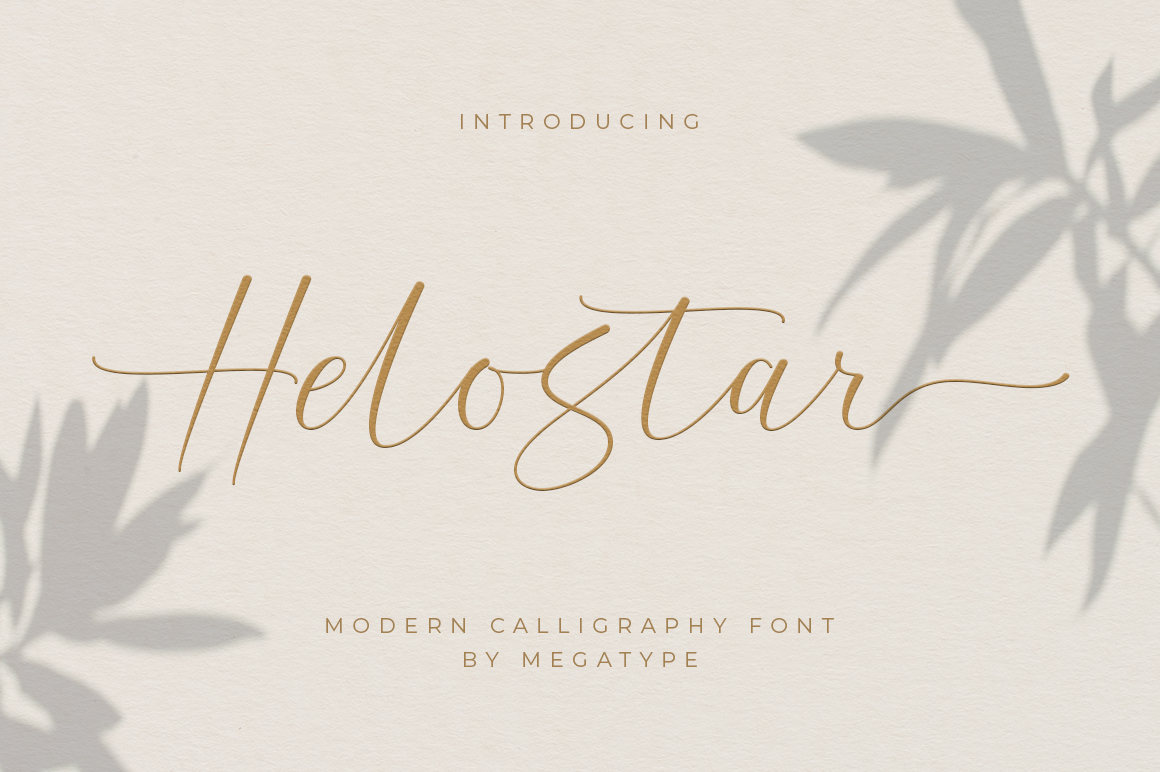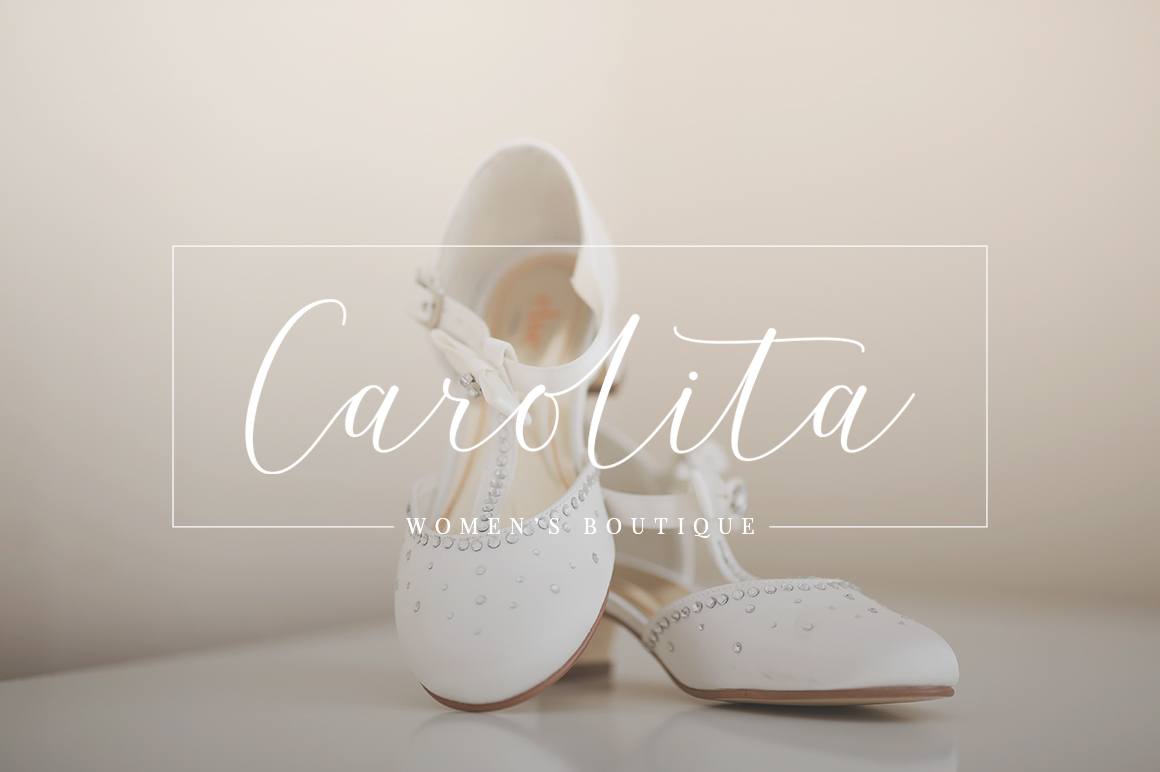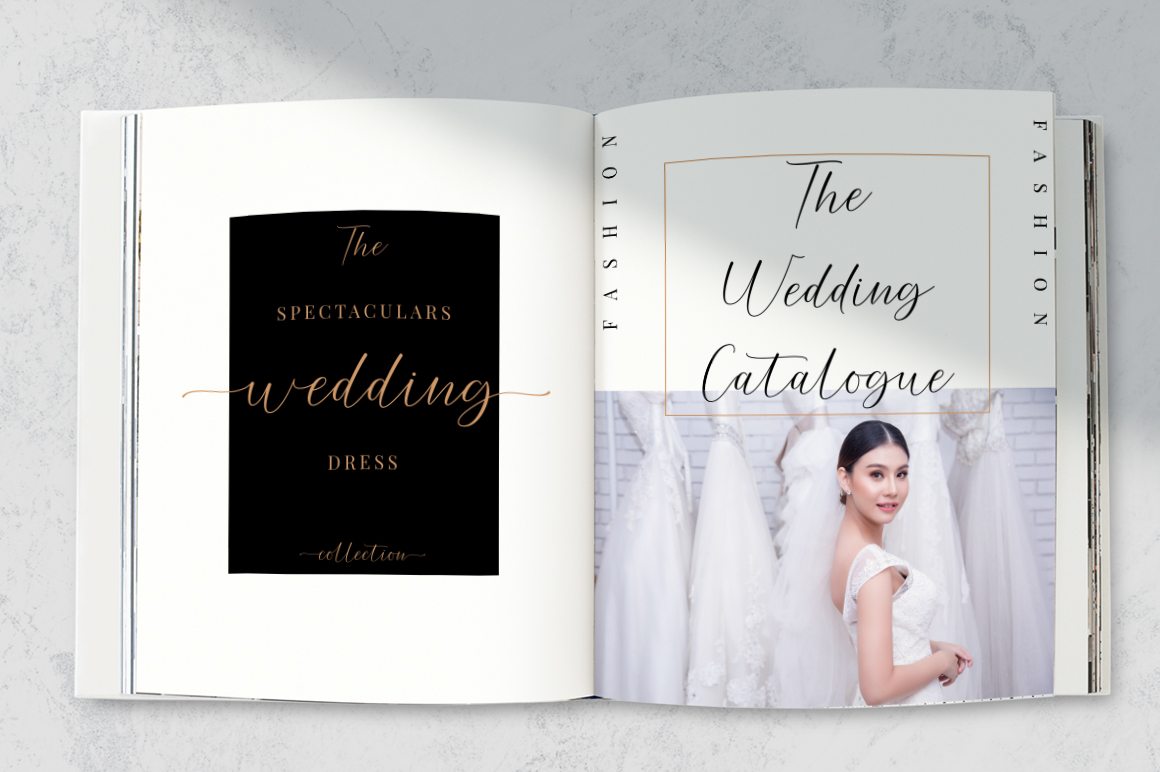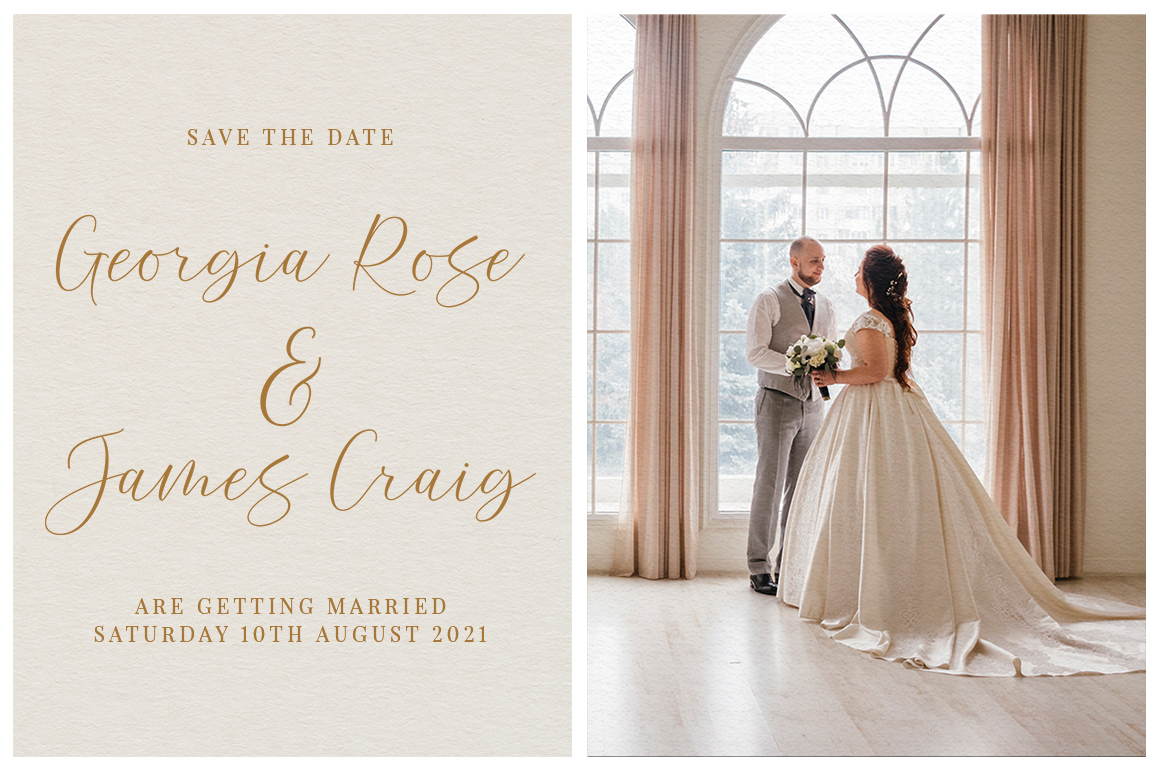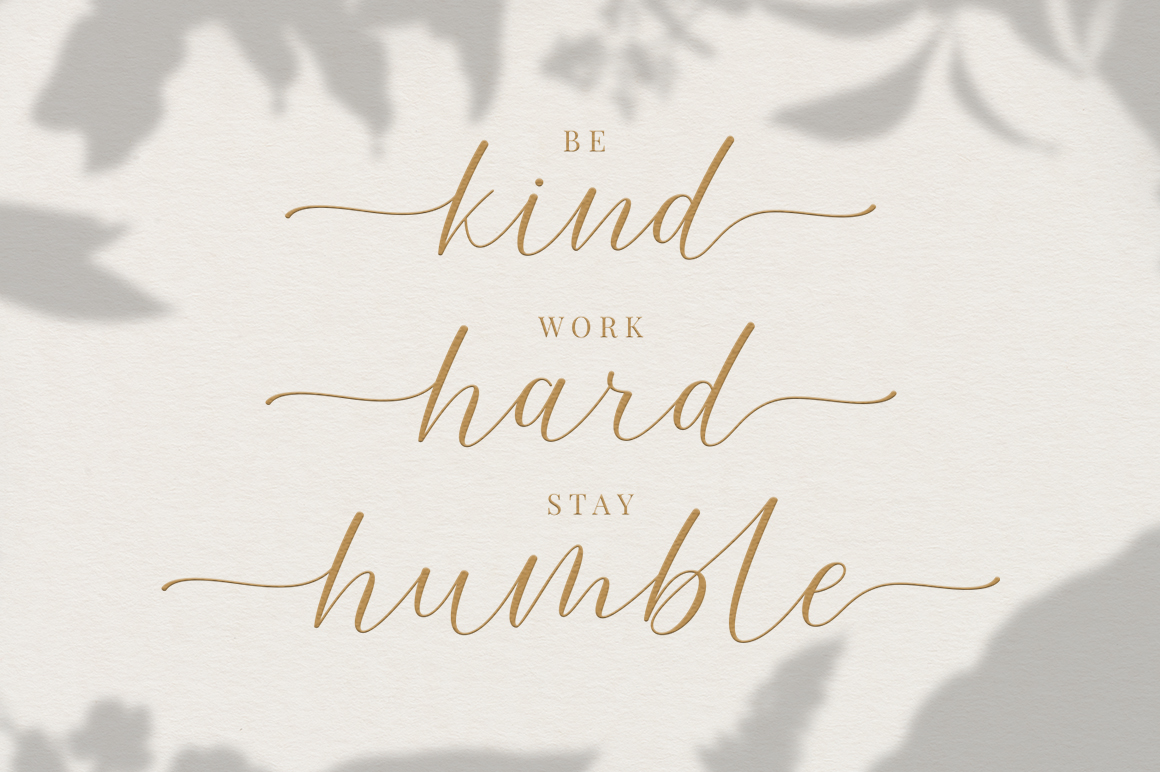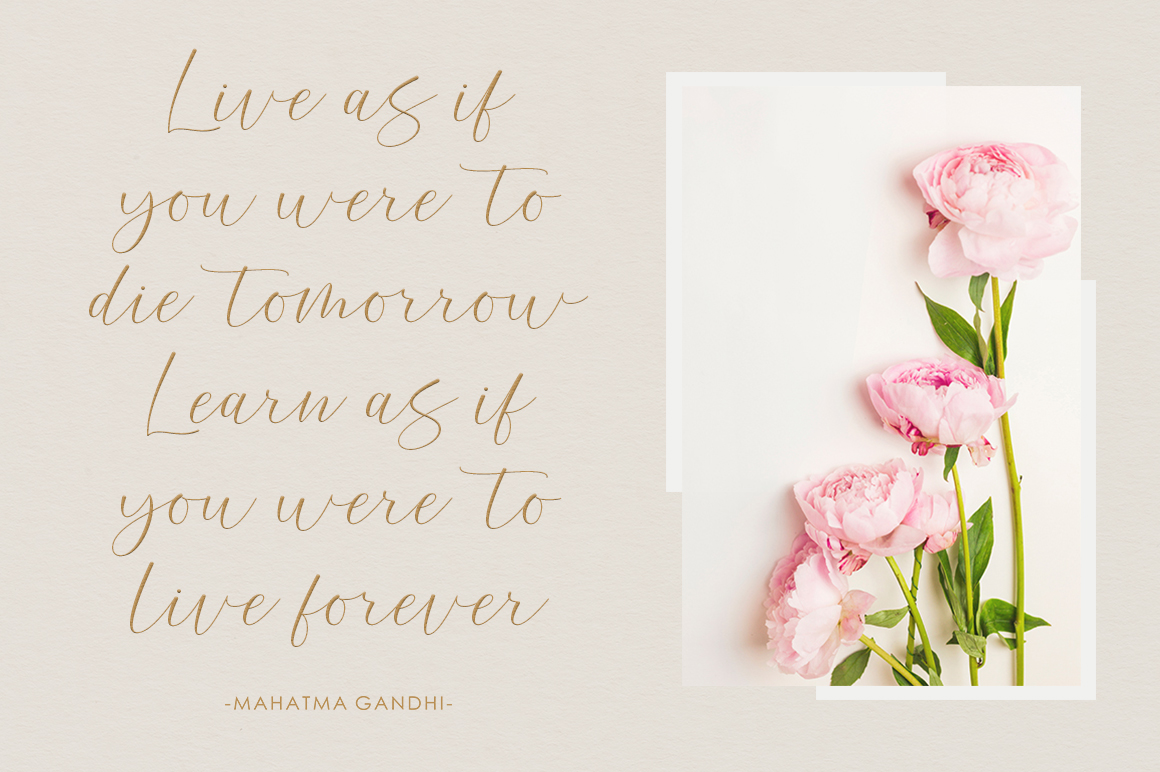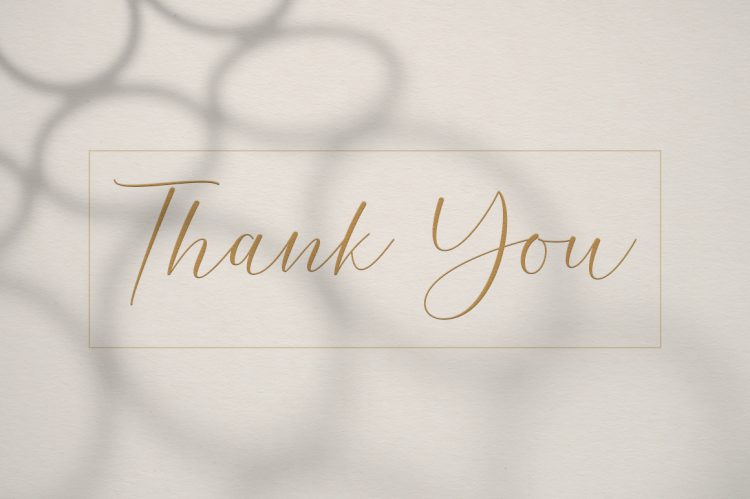
Helostar Script is a modern calligraphy font, that features a varying baseline, smooth line, classic and elegant touch. Can be used for various purposes.such as headings, signature, logos, wedding invitation, t-shirt, letterhead, signage, lable, news, posters, badges etc.
Helostar Script features 400+ glyphs characters. including 150+ ligatures, alternates and multiple language support.